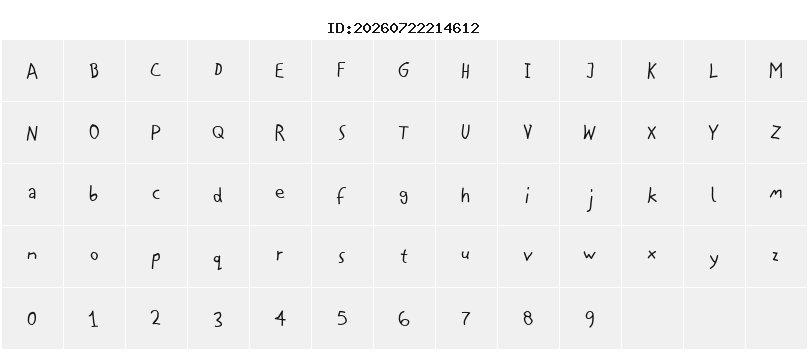
• Font Name: MouseCuts
• Full Font Name: MouseCuts Medium
• PostScript Name: MouseCuts-Medium
• Character Count: 244
• Manufacturer: Manfred Klein
About MouseCuts.ttf
MouseCuts.ttf is a modern, elegant sans-serif font designed for ultimate readability and visual harmony. Perfect for branding, headlines, web design, and print materials.